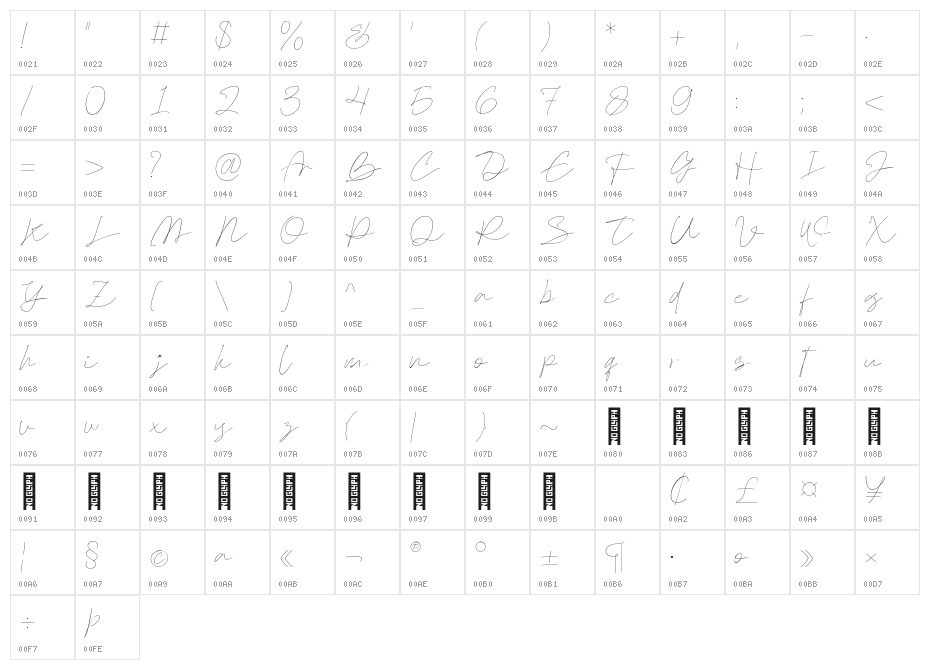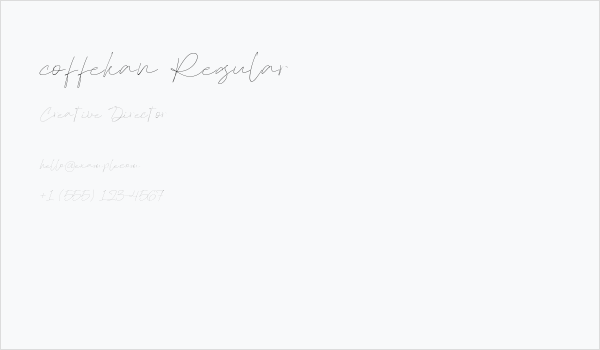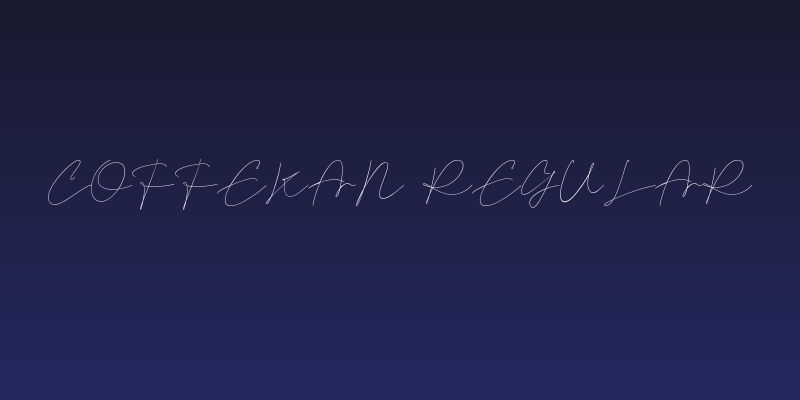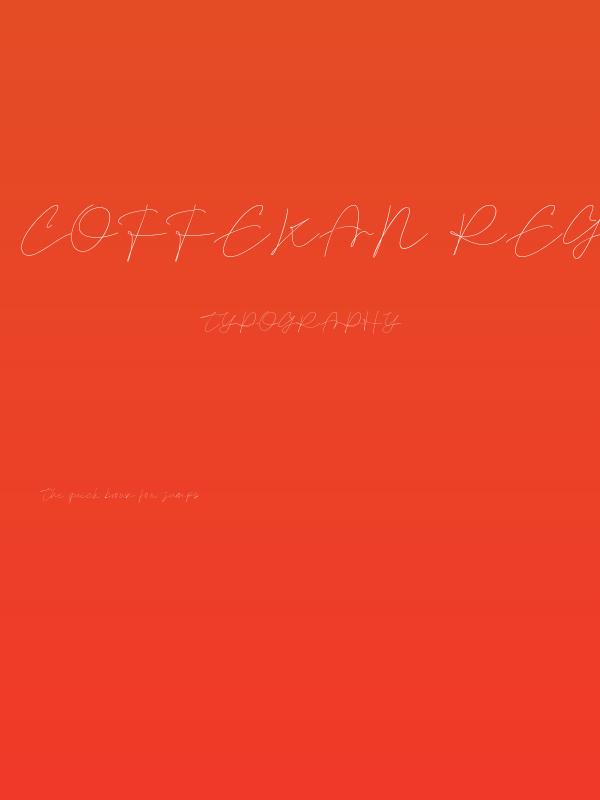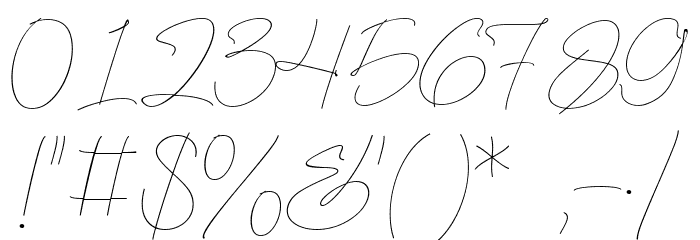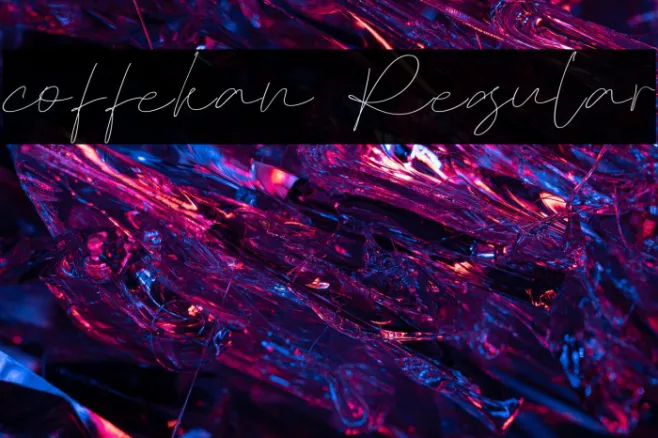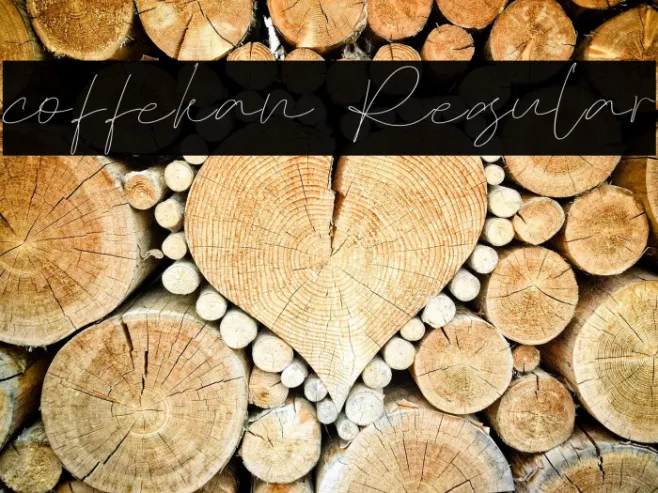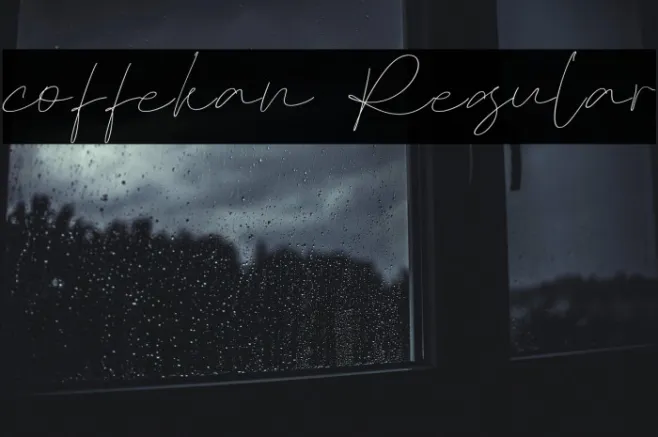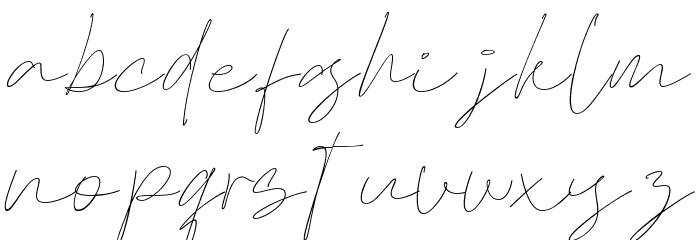
coffekan Regular Font
coffekan Regular Description
This font exudes a casual and elegant handwritten style, characterized by its flowing, cursive letterforms. The strokes are thin and delicate, giving it a light and airy feel. The letters are connected in a smooth, continuous manner, which enhances its script-like appearance. This font maintains a consistent slant throughout, adding to its dynamic and fluid nature. The uppercase letters are slightly larger than the lowercase, maintaining a harmonious balance. The numerals and special characters are crafted with the same attention to detail, ensuring uniformity across all glyphs. This font is perfect for projects that require a personal touch, such as invitations, greeting cards, or branding materials that aim to convey warmth and sophistication.
| Overall Style | Elegant, Casual |
| Use Case | Invitations, Personal branding, Greeting cards |
| Proposed Projects | Ideal for wedding invitations, personal branding, greeting cards, and elegant stationery. |